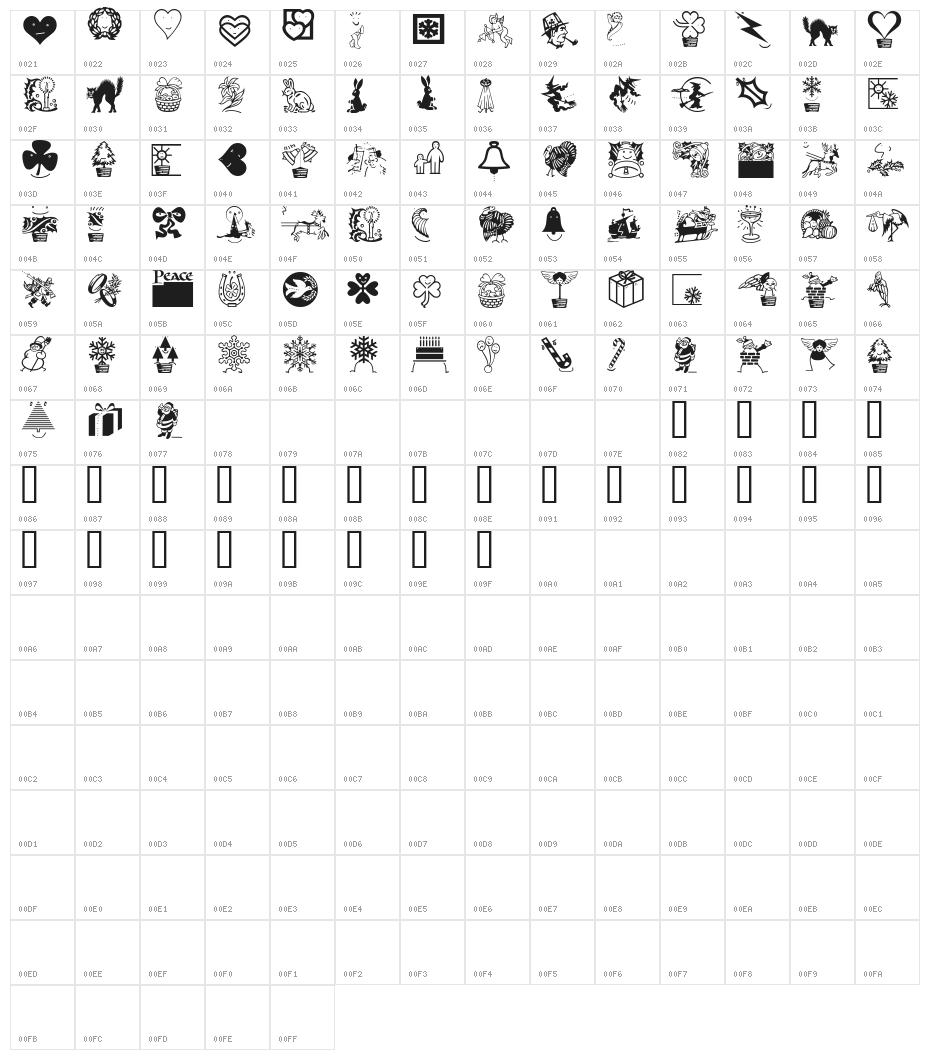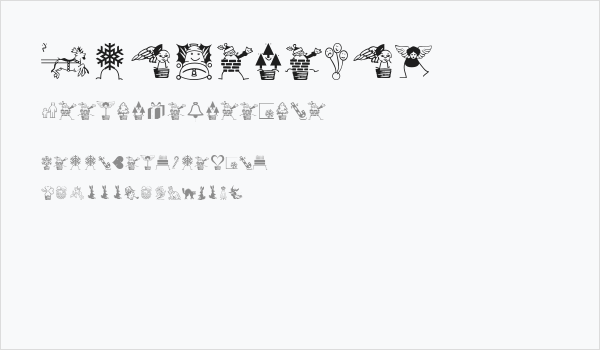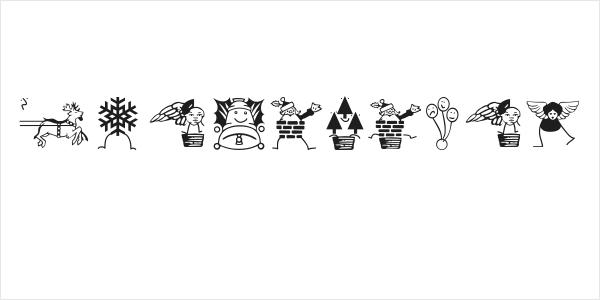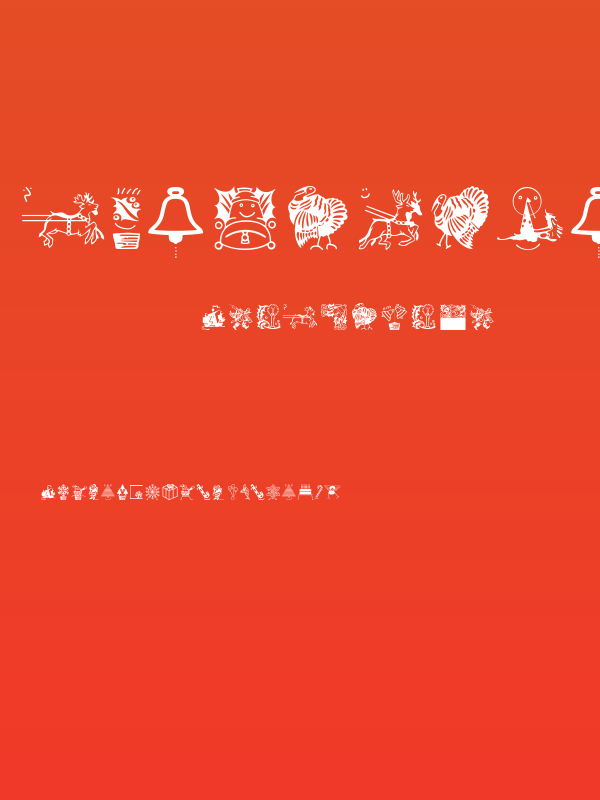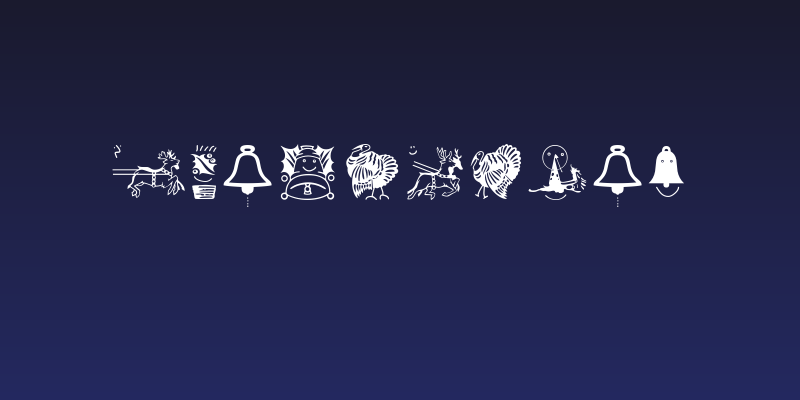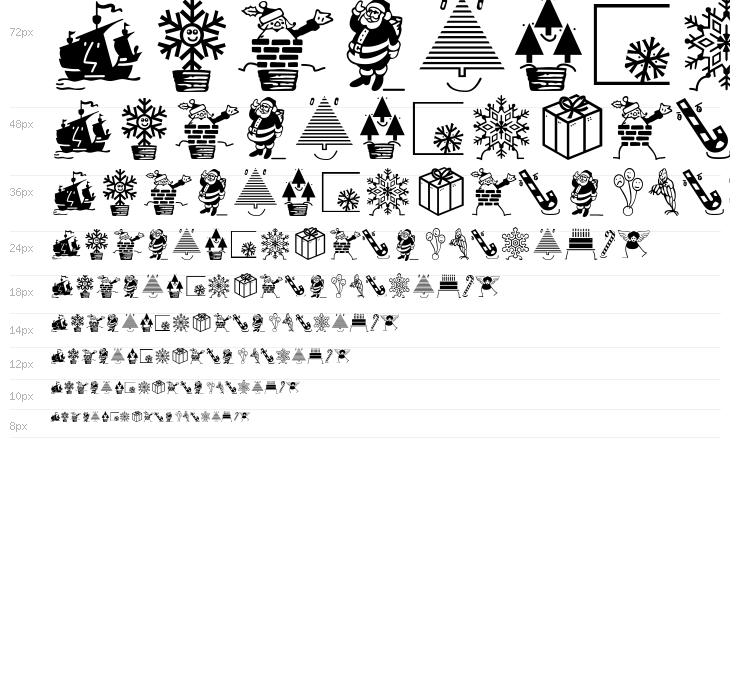
OldFriends Font
OldFriends Description
A decorative dingbat font featuring a variety of holiday, seasonal, and whimsical illustrations such as animals, holiday symbols, gifts, and festive characters. Each glyph is a unique pictorial icon rather than a traditional letterform.
Overall StyleDecorative, Whimsical, Festive
Use CaseIcons, Decorative elements, Themed graphics
Proposed ProjectsGreeting cards, holiday invitations, festive posters, scrapbooking, decorative borders, event flyers.